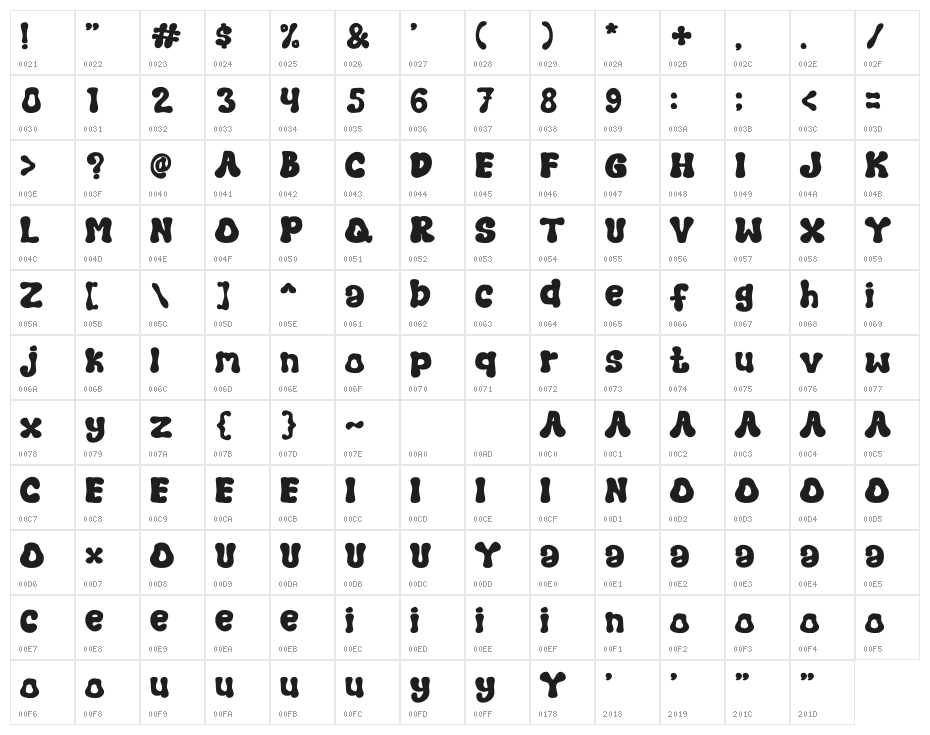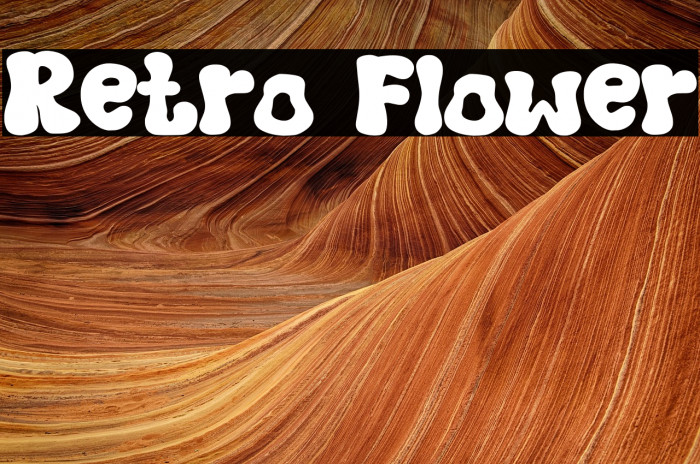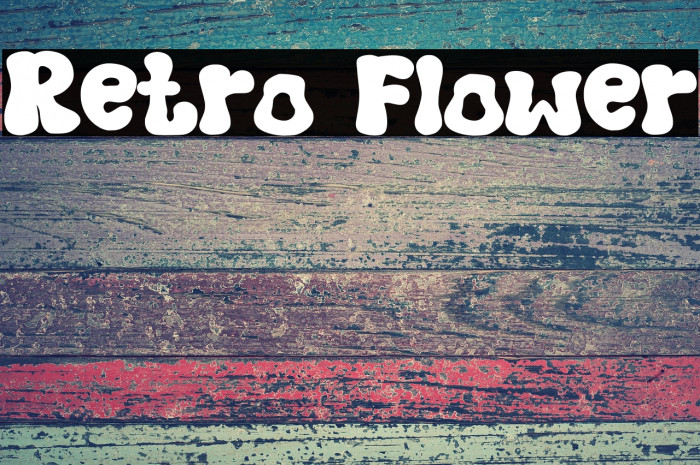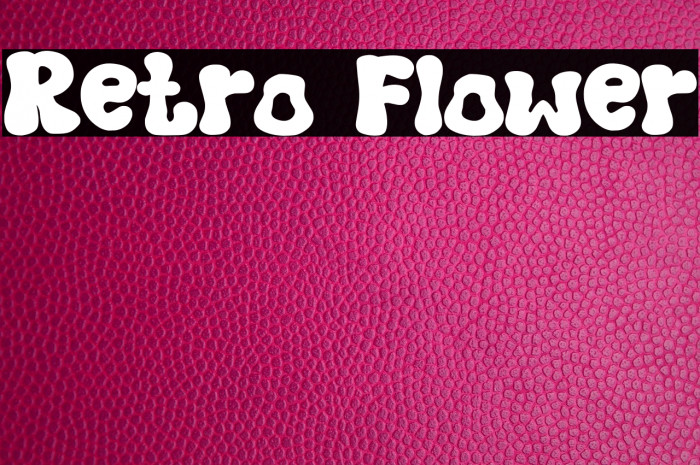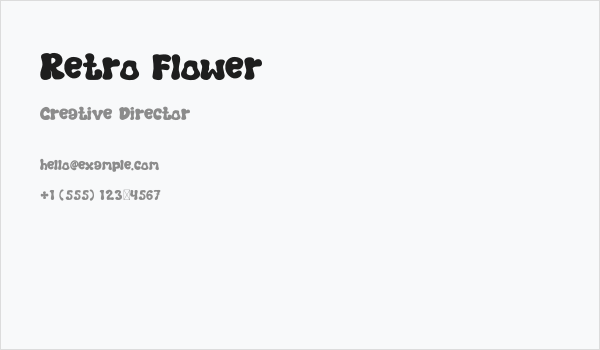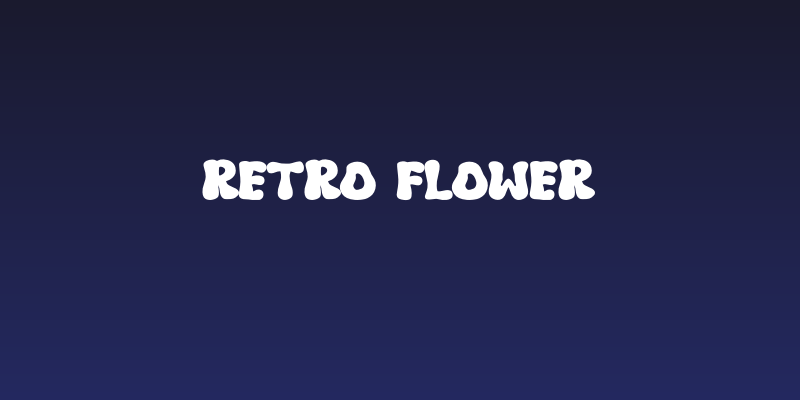
Retro Flower Font
This font exudes a playful and retro vibe, characterized by its bold, rounded, and bubbly letterforms. The thick strokes and soft curves give it a friendly and approachable appearance, reminiscent of 1960s and 1970s design aesthetics. Each character is uniquely crafted with a whimsical touch, making it ideal for projects that require a fun and nostalgic feel. The font maintains consistency across uppercase, lowercase, numerals, and special characters, ensuring versatility in various design applications.
| Overall Style | Retro, Playful |
| Proposed Projects | Ideal for retro-themed posters, children's book covers, playful branding, and vintage-inspired merchandise. |